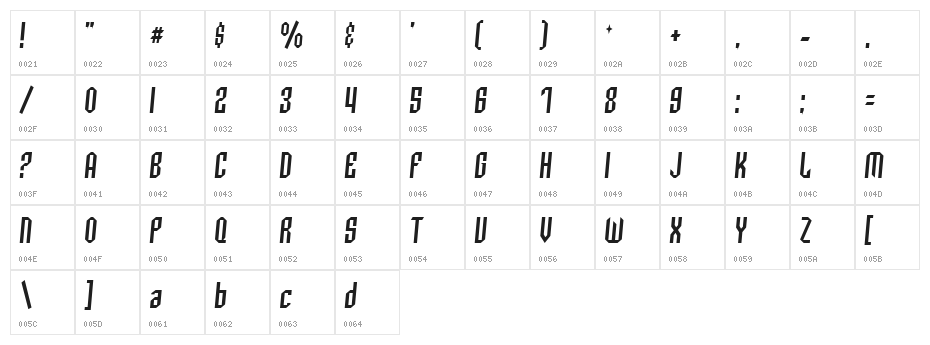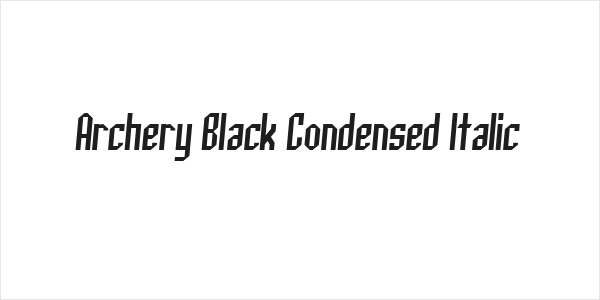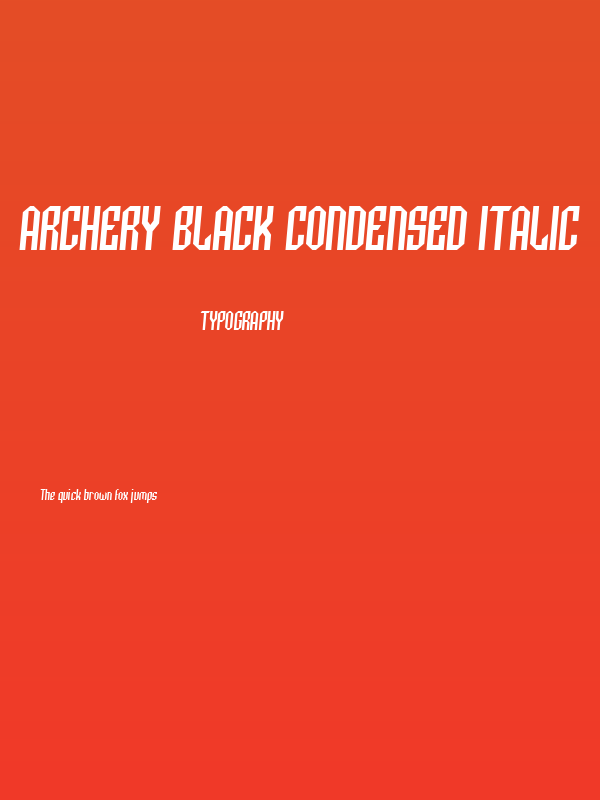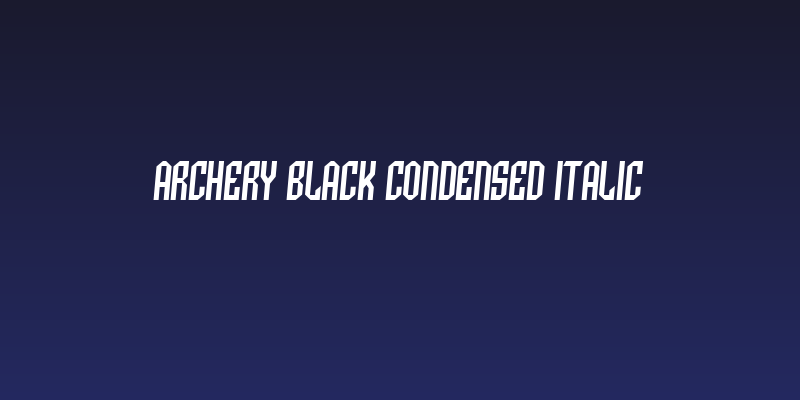
Archery Black Condensed Italic Font
Archery Black Condensed Italic Description
This font features a bold and condensed style with a distinct italic slant, giving it a dynamic and energetic appearance. The characters are sharply angular, with a geometric influence that adds a modern touch. The uppercase letters are tall and commanding, while the lowercase letters maintain a consistent style, ensuring readability. The numerals are equally bold, matching the overall aesthetic. Special characters are included, maintaining the same angular and condensed design. This font is ideal for projects that require a strong visual impact and a contemporary feel.